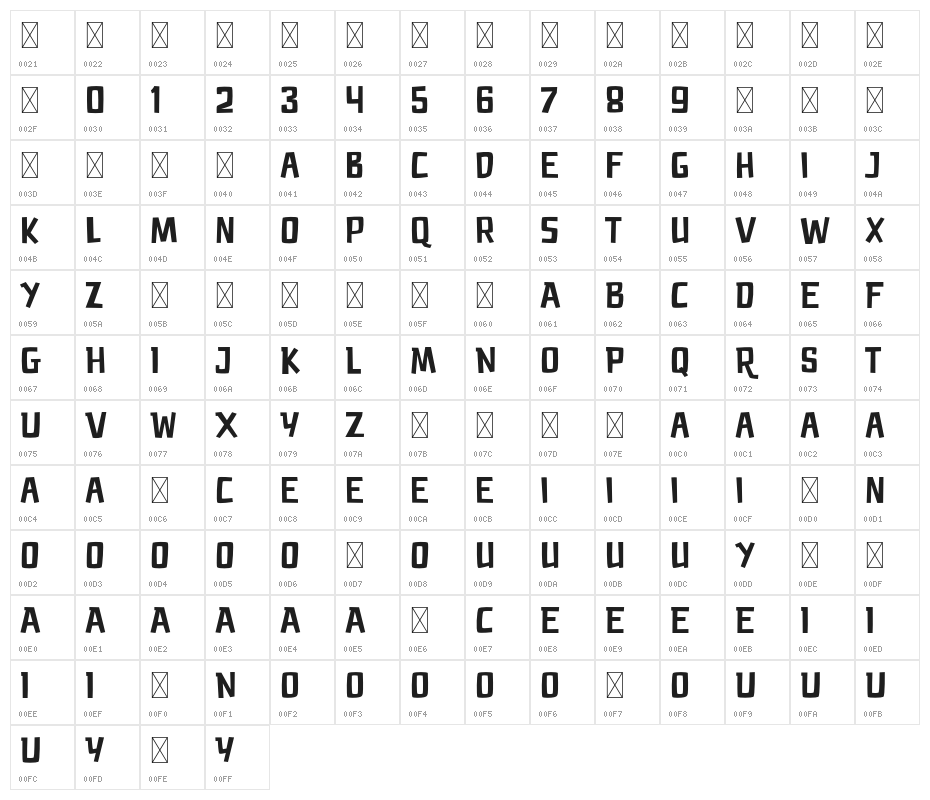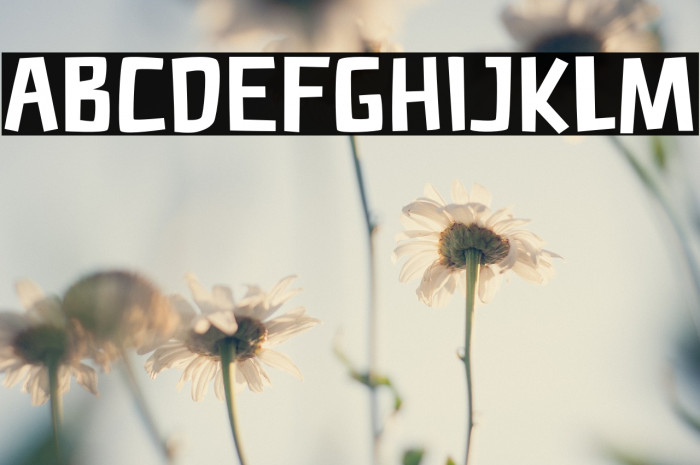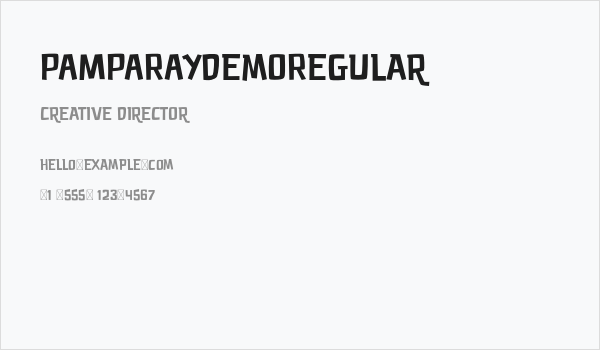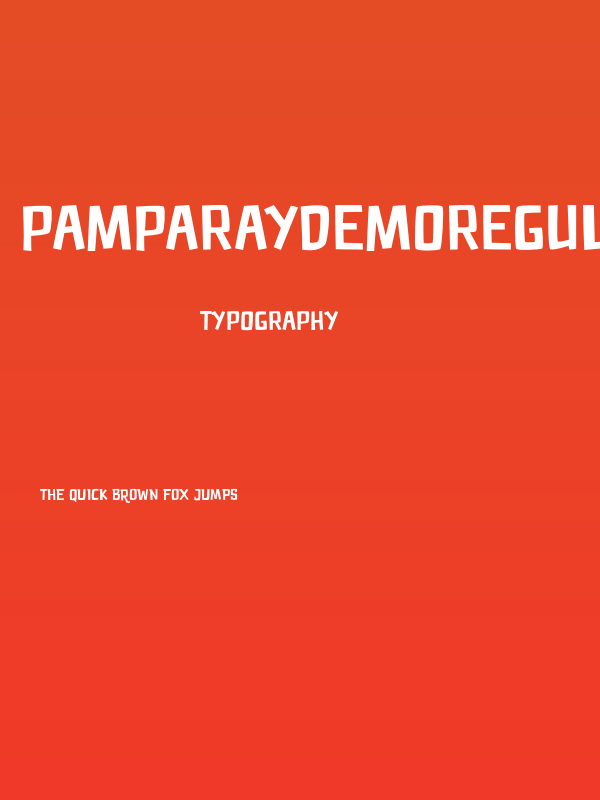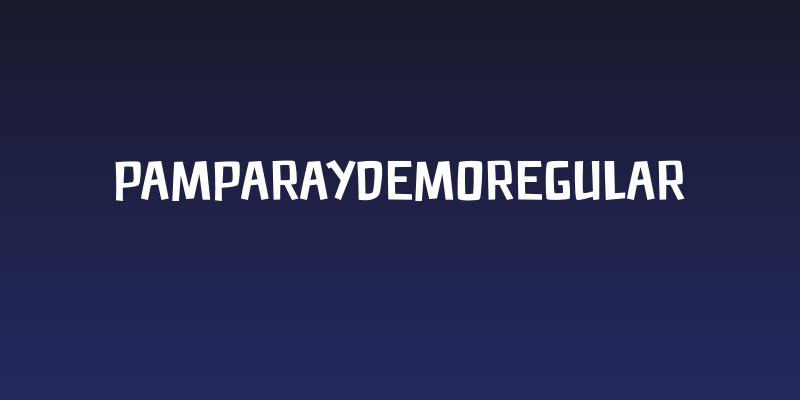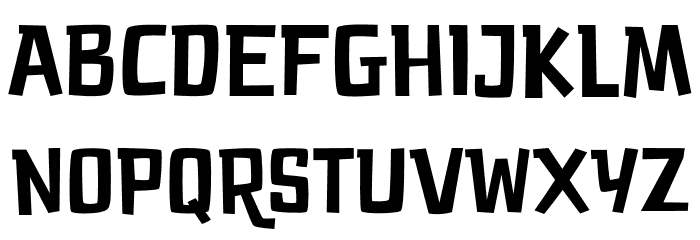
PAMPARAYDemoRegular Font
PAMPARAYDemoRegular Description
This font features a bold and dynamic style with a slight slant, giving it a sense of movement and energy. The characters are robust and have a strong presence, making them ideal for attention-grabbing designs. The uppercase letters are particularly striking, with angular lines and a modern aesthetic. The numbers are equally bold, maintaining the same dynamic style as the letters. The font lacks traditional serifs, contributing to its contemporary and clean look. It is well-suited for projects that require a bold statement, such as posters, headlines, or branding materials.
| Proposed Projects | Ideal for posters, headlines, branding, and any design needing a strong visual impact. |